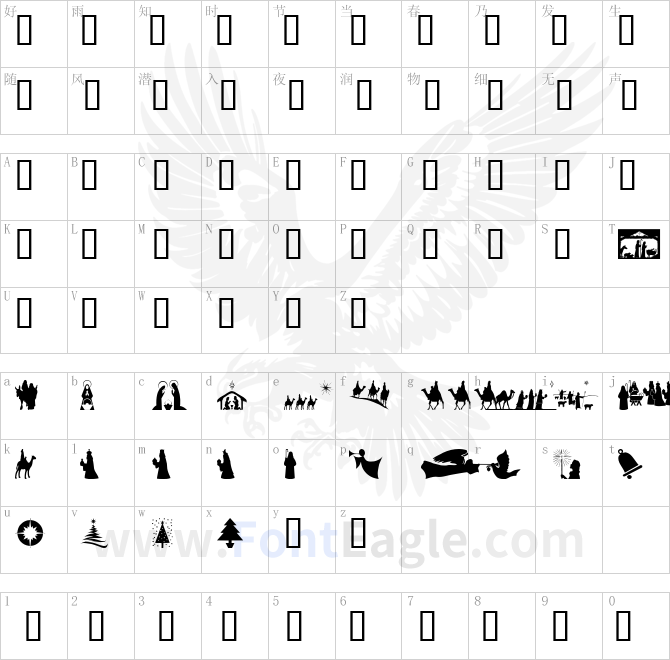
- Font name:SL Christmas Silhouettes
- Font Subfamily ID:Macromedia Fontographer 4.1 SL Christmas Silhouettes Normal
- Font Full Name:SL Christmas Silhouettes Normal
- Font Version:Macromedia Fontographer 4.1 30-10-2000
- Postscript:SLChristmasSilhouettesNormal
- Font Copyright:Fonted by Su Lucas. Copyright 2000.